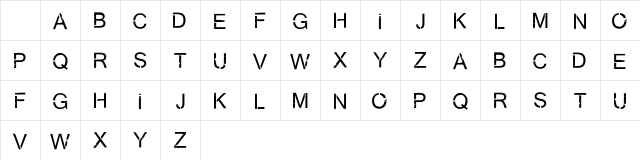
Complete Virtual Bliss Regular glyph index. Displaying only characters natively supported by Virtual Bliss Regular font.
Virtual Bliss is a composed and adaptable typeface that performs quietly and consistently across a wide range of design contexts.
Pro Tip: Use Virtual Bliss in both headline and body roles to test its range before committing to a single application.